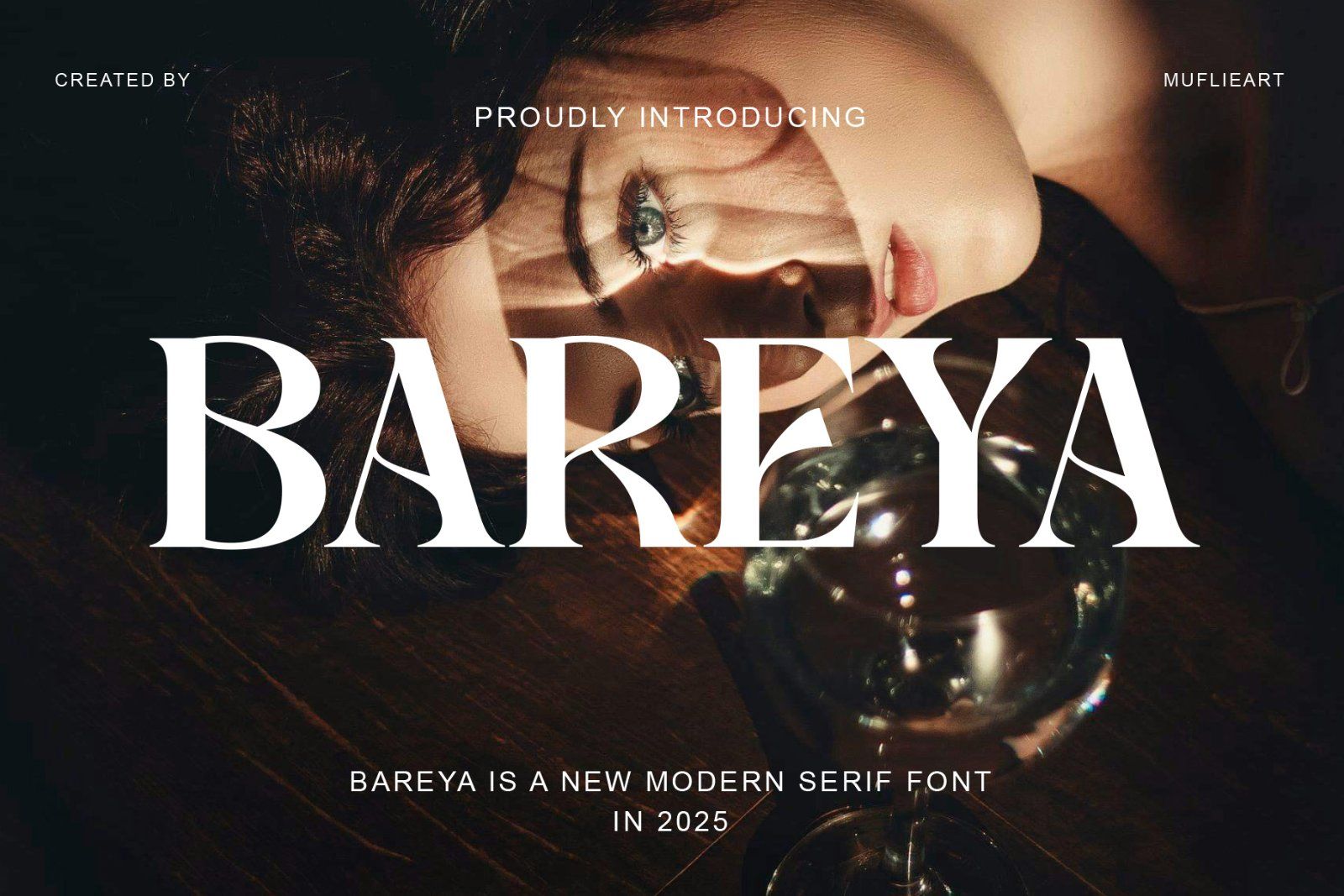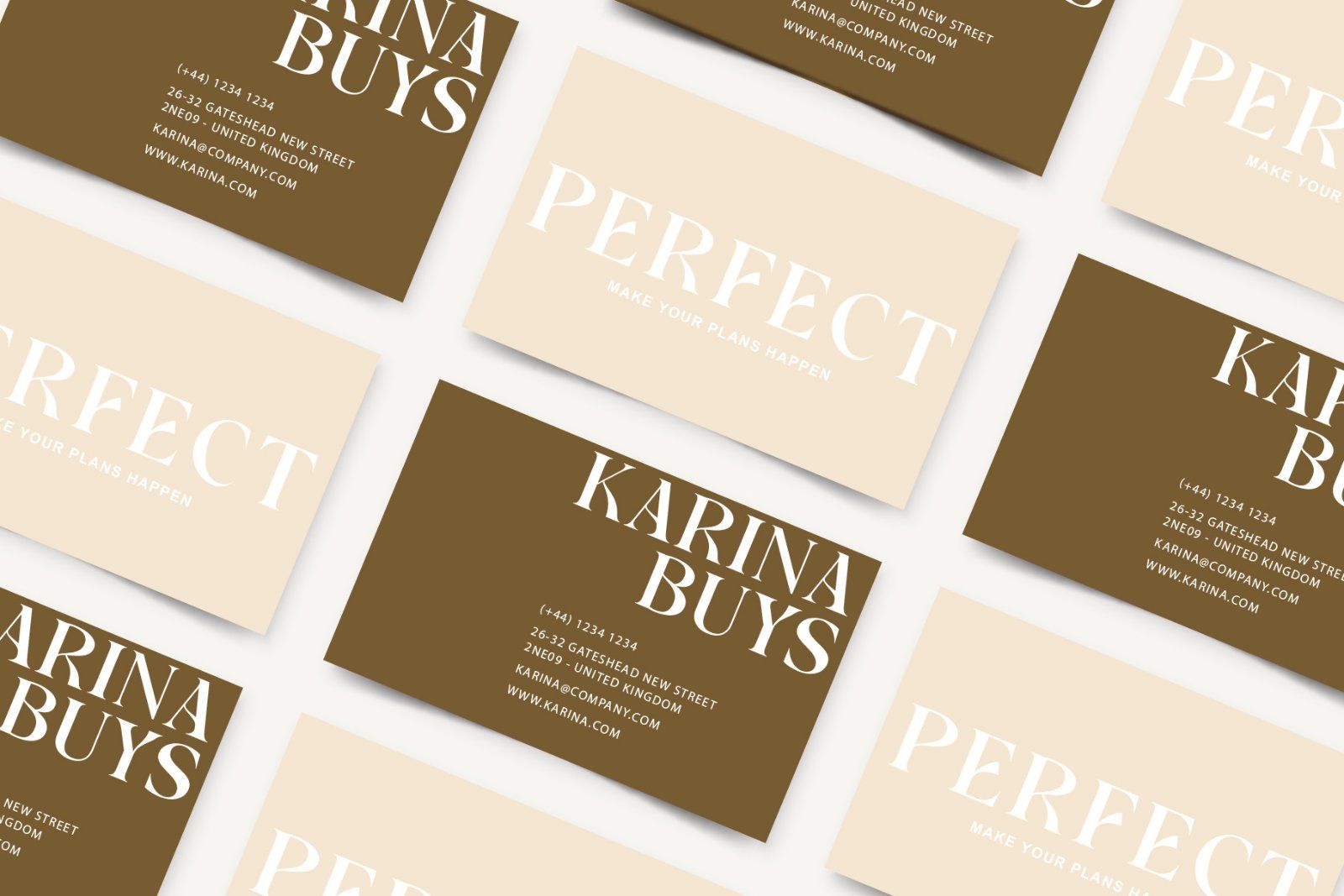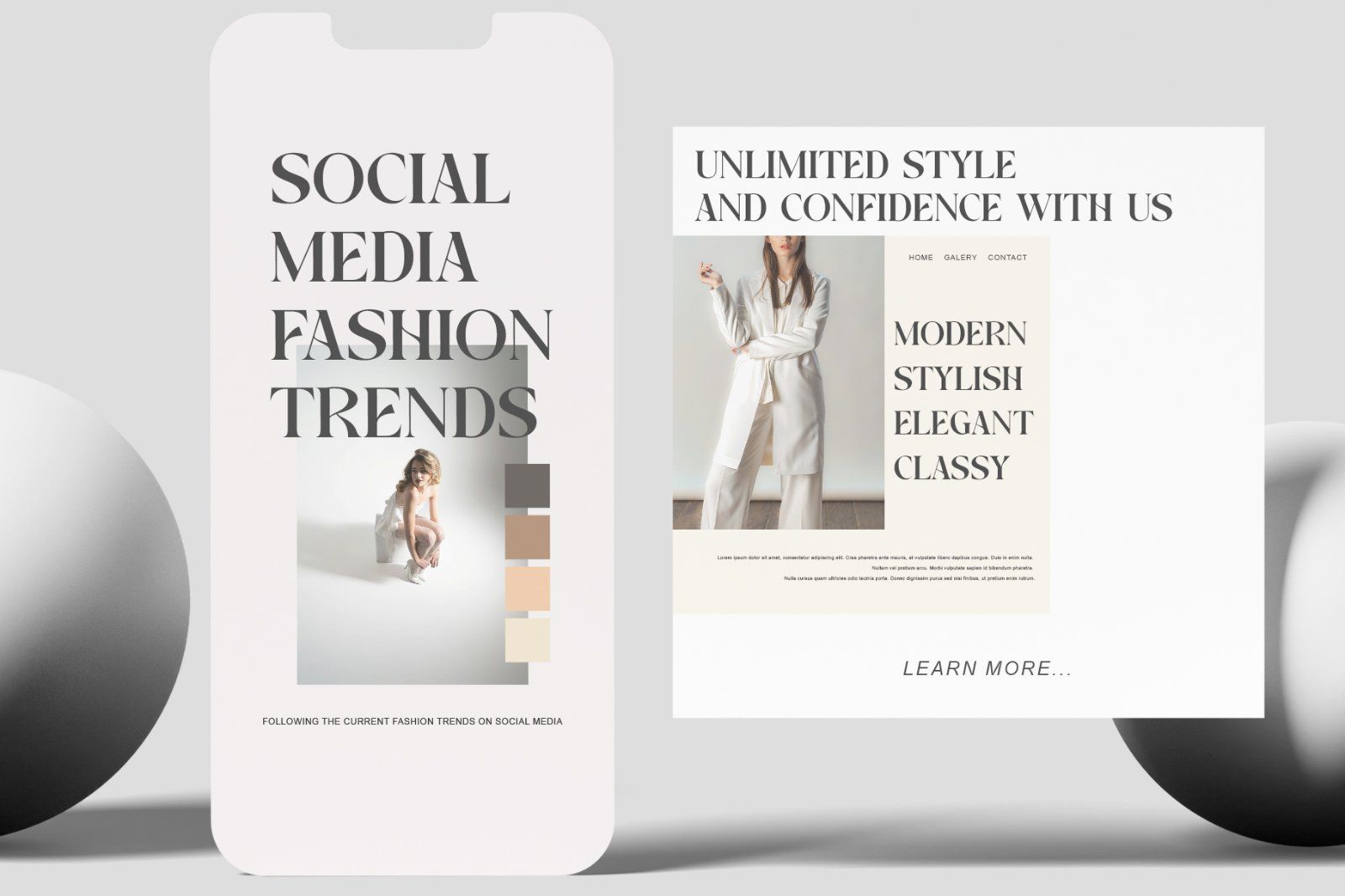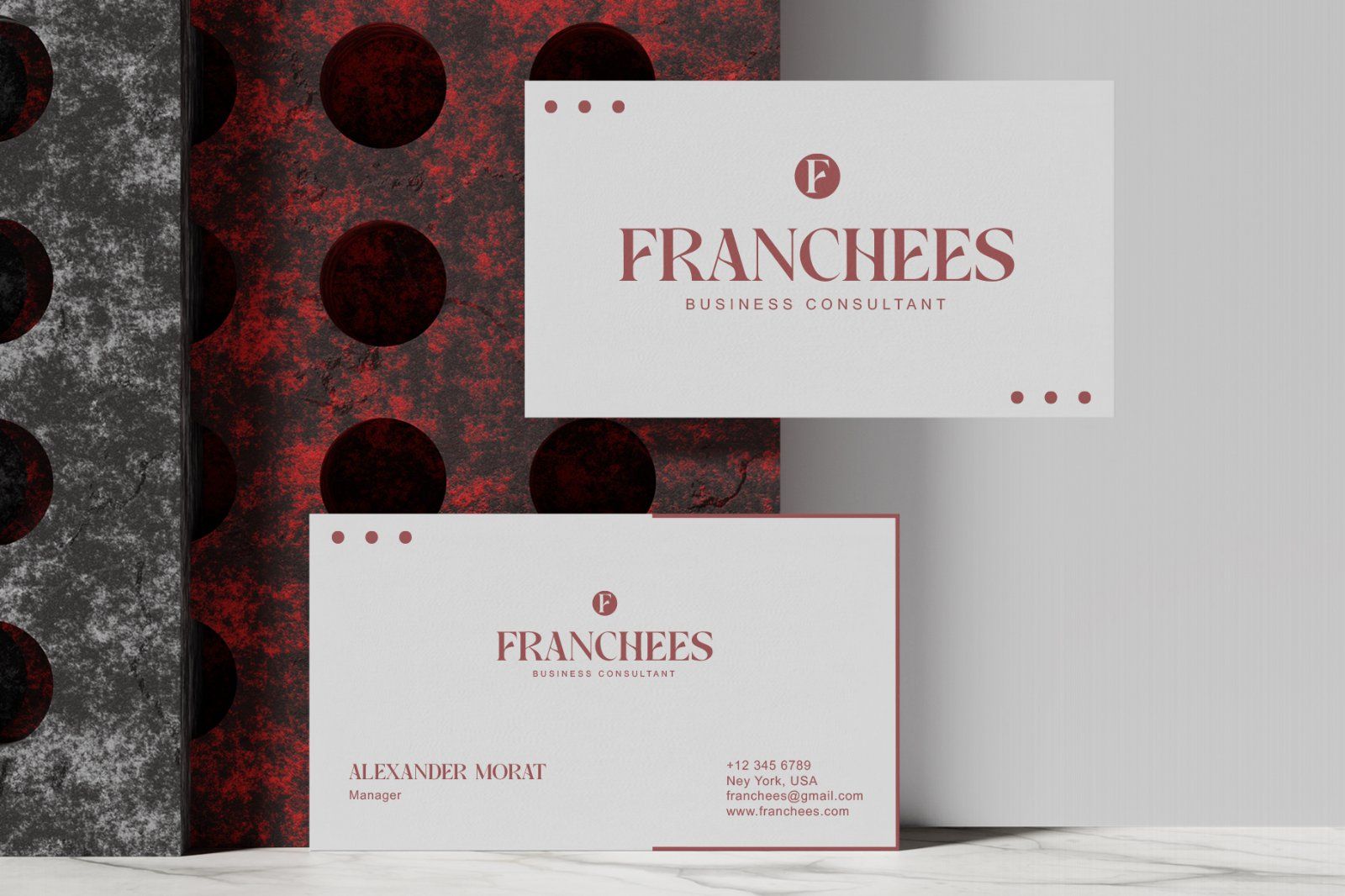
MarketplaceFontsBareya - Modern Serif Font
Introducing Bareya the elegant, beautiful, and modern Serif. With its modern and minimalist look, Bareya brings a luxurious, classy, ​​and clean style to your projects such as websites, modern logos, brand identities, social media quotes, wedding stationery, magazines, and more!
Bareya features unique and classy capital letters A to Z making Awesome Starthen a beautiful font that can be customized for various projects and jobs you want.
Bareya is perfect for: logos, brands, wedding invitations, business cards, greeting cards, posters, magazines, social media, agenda prints, and websites.